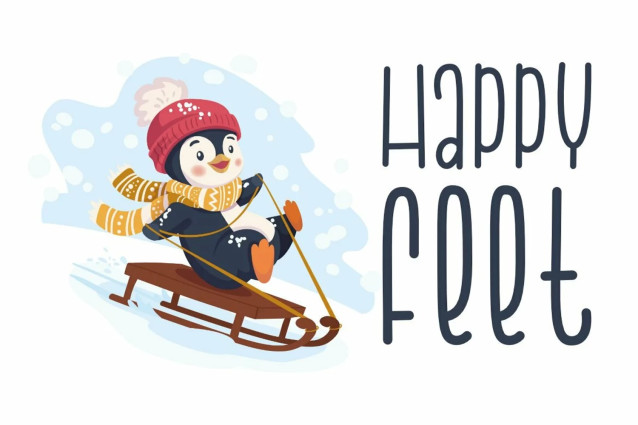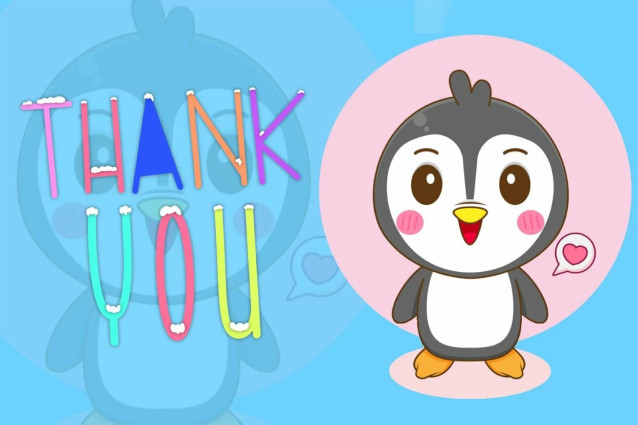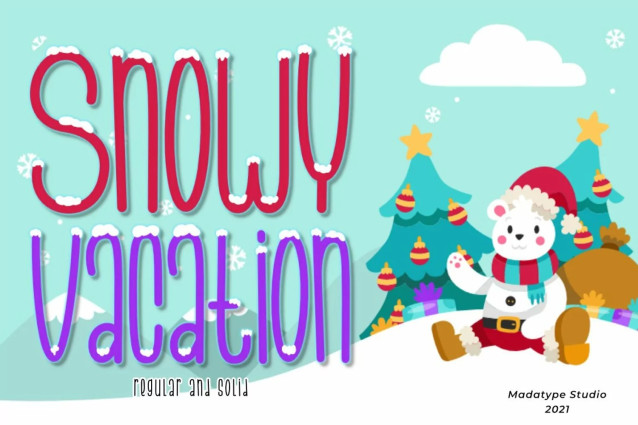
Snowy Vacation Font
Snowy Vacation Font is a modern and winter-inspired display font. Whether you use it for cartoon related designs, children games or just any creation that requires a lovely touch, this font will be an amazing choice.